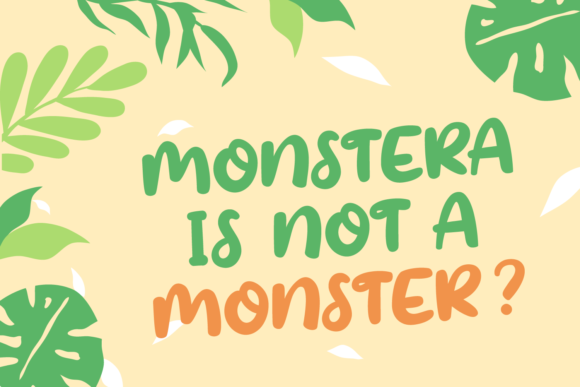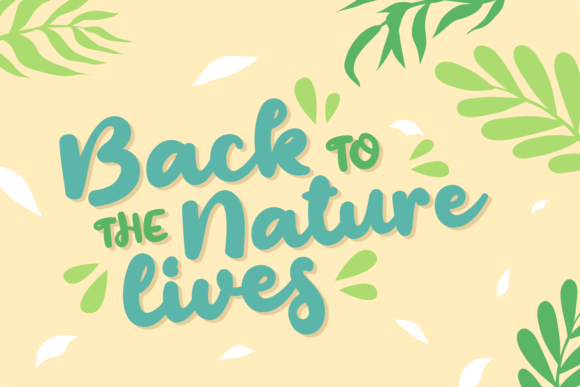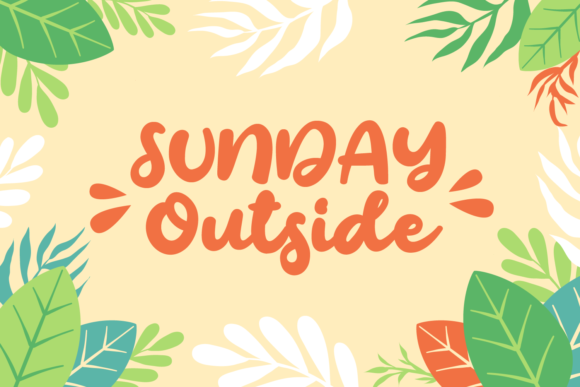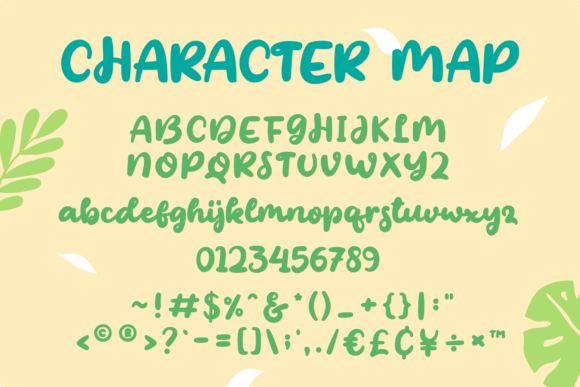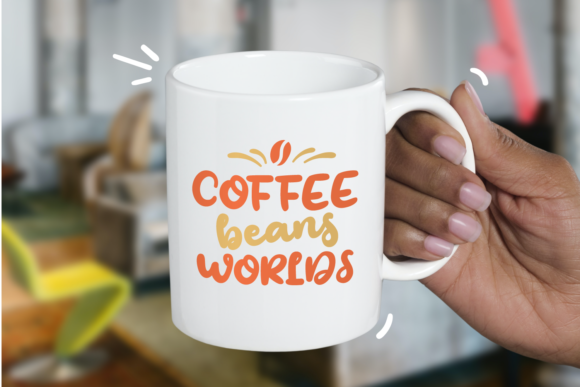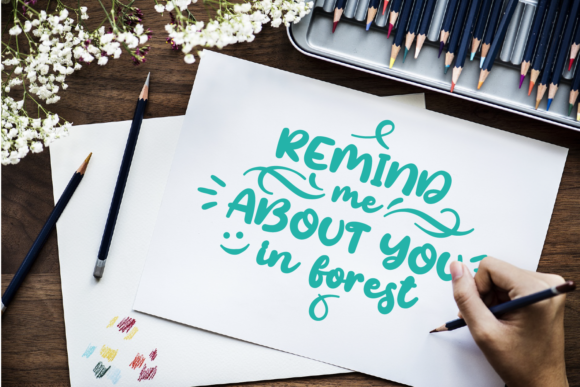
Introduction to Monster Garden Font
Monster Garden is a playful and funny display font.
It looks stunning on children books, children cards, poster, birthday cards, logos, party cards and every other design which needs a playful touch This font is PUA encoded which means you can access all of the glyphs ease.